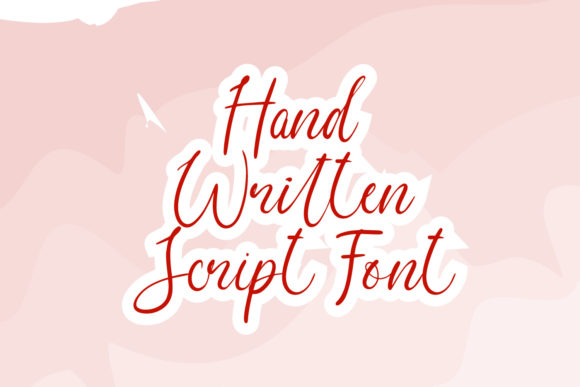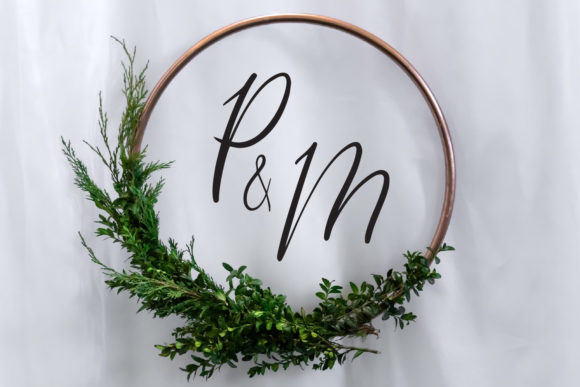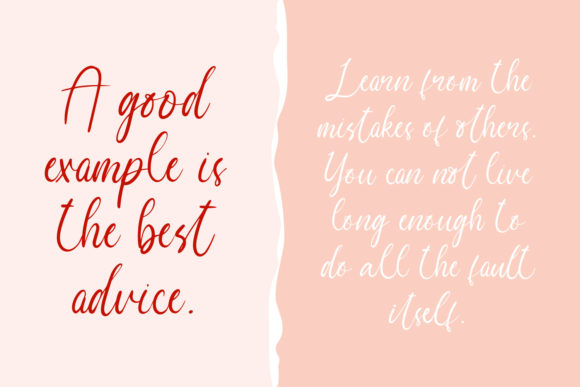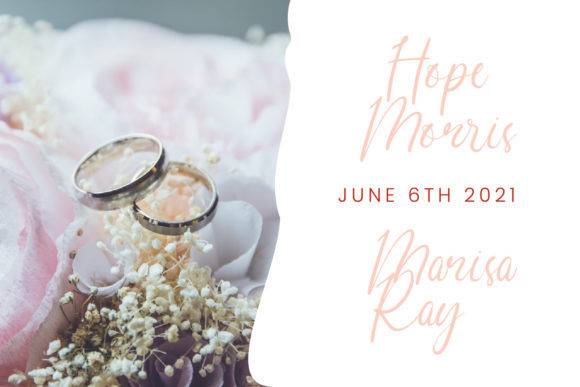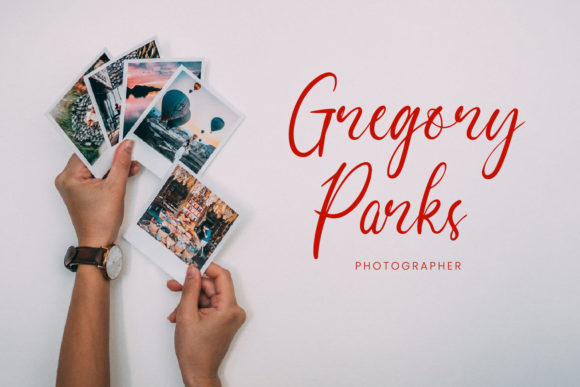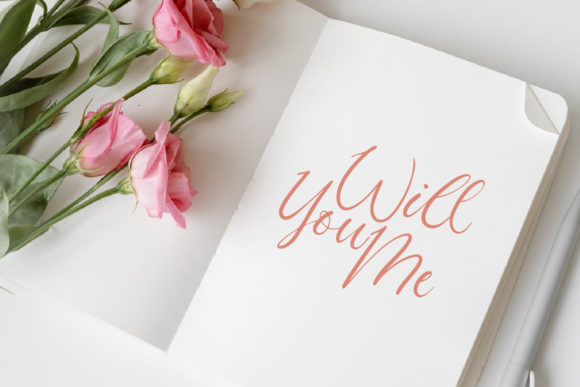
Pignatelli Script Font
About Pignatelli Script Font
Pignatelli Script is a lovely and timeless handwritten font. It is the best choice for creating eye catching logos, branding and quotes. Every letter has a unique and beautiful touch, which will make your design come alive!